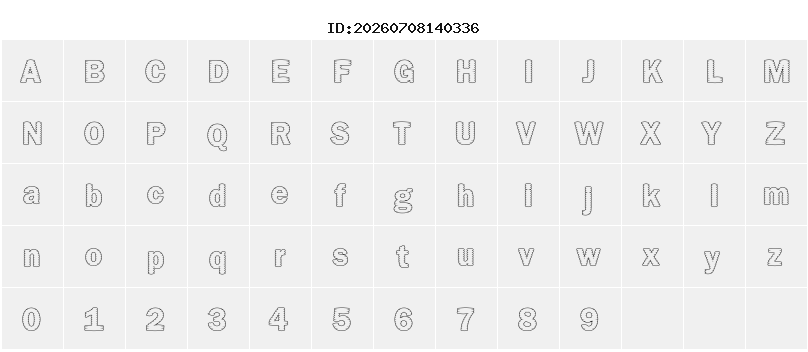
DTCFranklinGotM39 Preview
About DTCFranklinGotM39.ttf
DTCFranklinGotM39.ttf is a modern, elegant sans-serif font designed for ultimate readability and visual harmony. Perfect for branding, headlines, web design, and print materials.